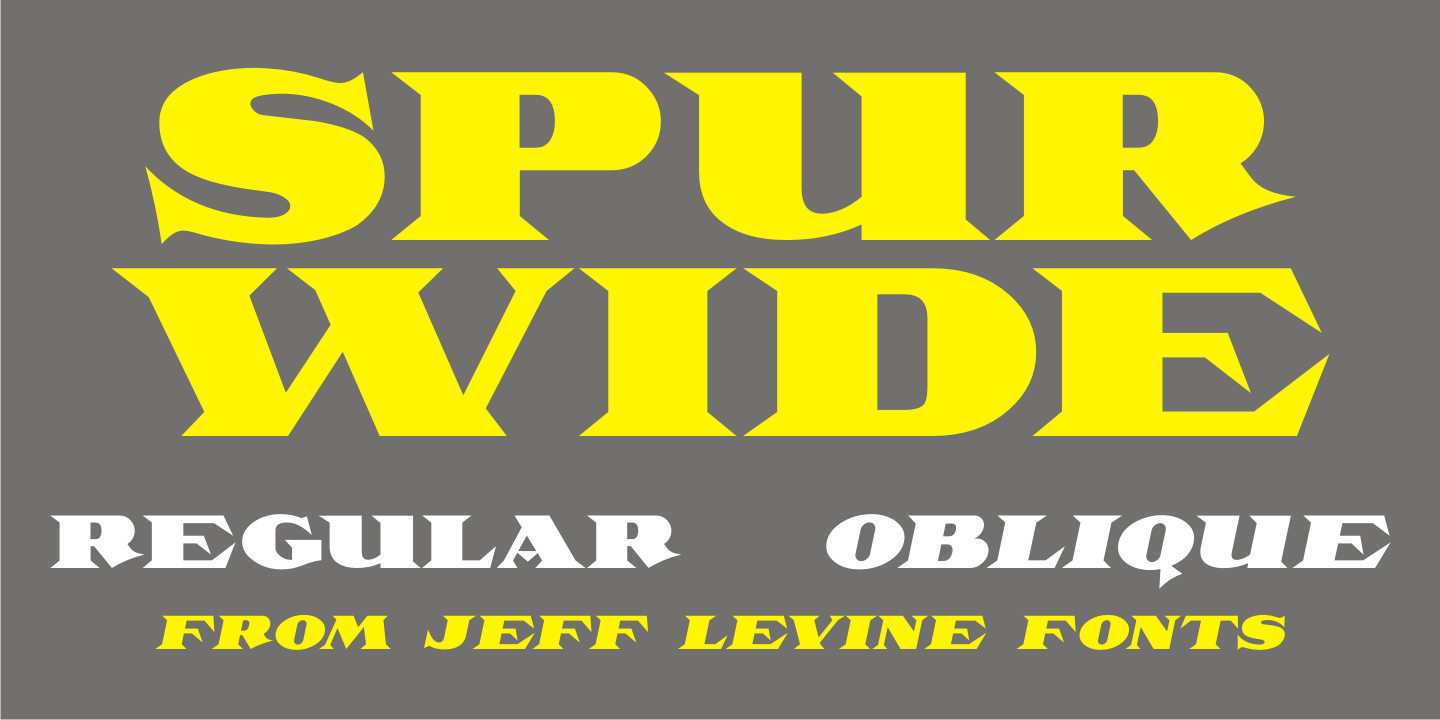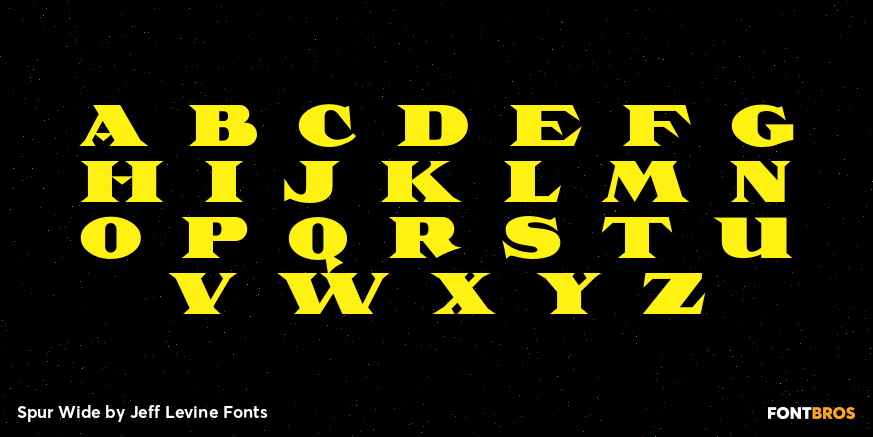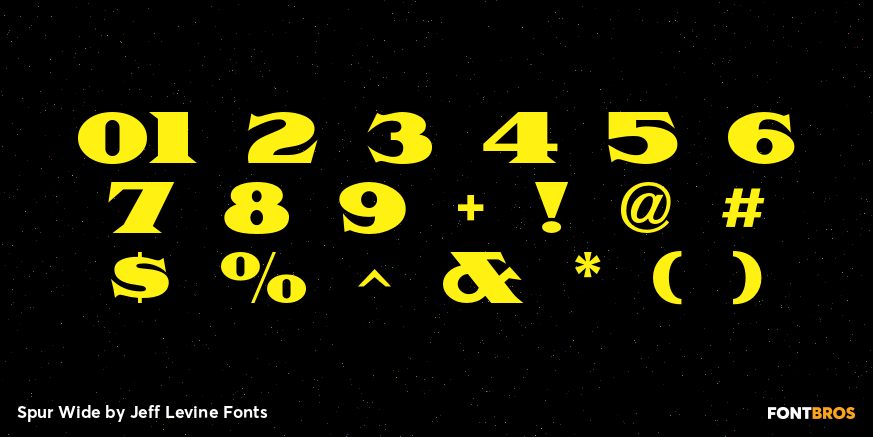
Spur Wide
Spur Wide JNL was modeled from an example of hand lettering from the antique French alphabet book L'Art du Tracé Rationnel de la Lettre.
Heavy Roman style letters with spurs (often referred to as Latin) were most popular with sign painters and show card writers in the early part of the 20th century.
Spur Wide JNL is available in both regular and oblique versions.